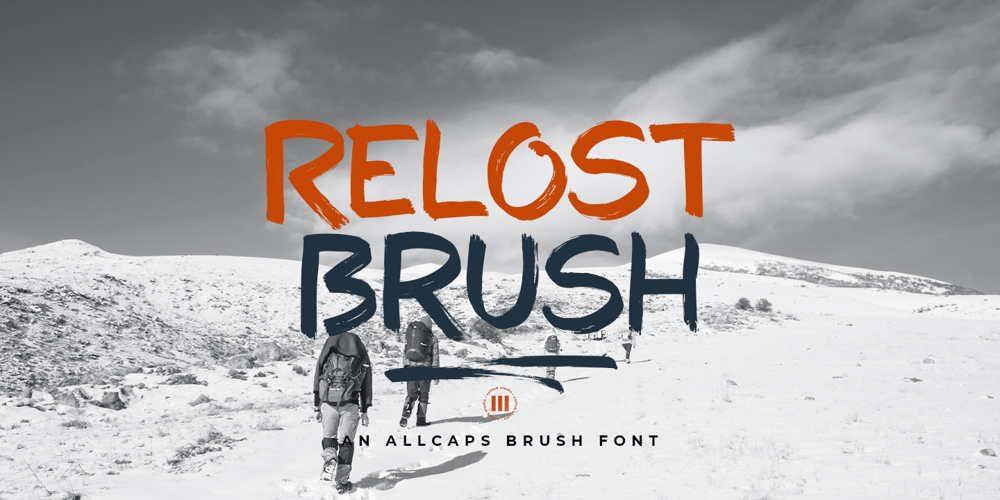
Relost Brush Font Family was designed by Muh. Aswar and published by Colllab Studio. Relost Brush contains 1 styles and family package options. Presenting Relost Brush! An All-caps Brush Font with Texture. This font made with the perfect combination of each character. You can combine with Extra to get a unique combination. It looks original and can be used for all your project needs. Each glyph has its own uniqueness and when meeting with others will provide dynamic and pleasing proximity. This font can be used at any time and in any project. You can see in the presentation picture above, Relost Brush looks strong and wild on design projects.So, Relost Brush Font can’t wait to give its touch to all your design projects such as quotes, Adventure themes, poster design, personal branding, promotional materials, website, logotype, product packaging, etc.WHAT’S INCLUDED? Relost Brush • It comes with uppercase, lowercase (All-caps), ligatures, numeral, punctuation, symbols, Alternates, and Standard Latin Multilingual Support (Afrikaans, Albanian, Catalan, Danish, Dutch, English, French, German, Icelandic, Indonesian, Italian, Malay, Norwegian, Portuguese, Spanisch, Swedish, Zulu, and More). Extra Swashes • Included 9 Underline Swashes. You can feature all with typing c_1 until c_9 (Opentype Feature) or using Characters Map. A Million ThanksColllab Studio